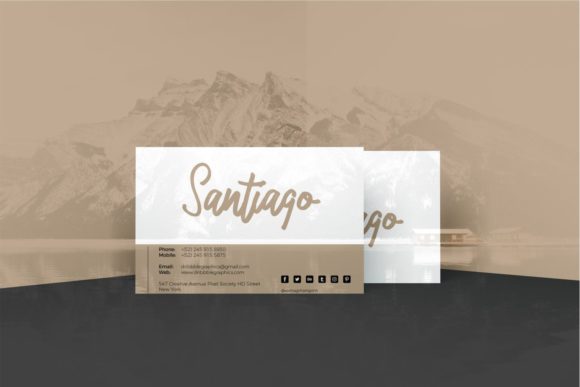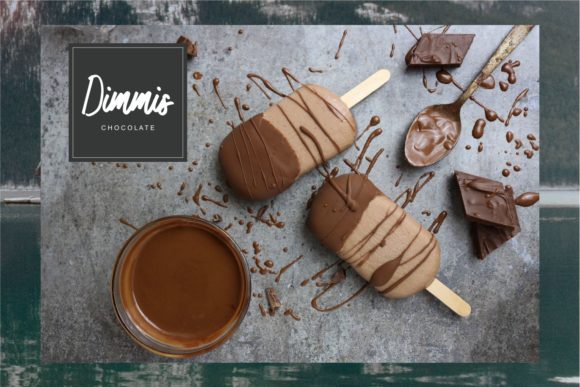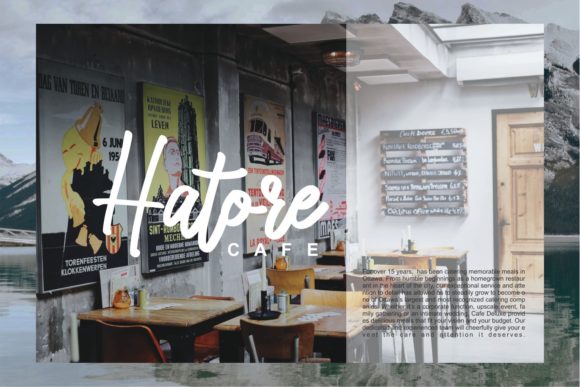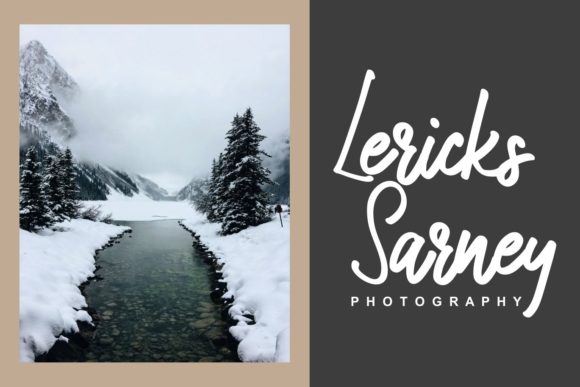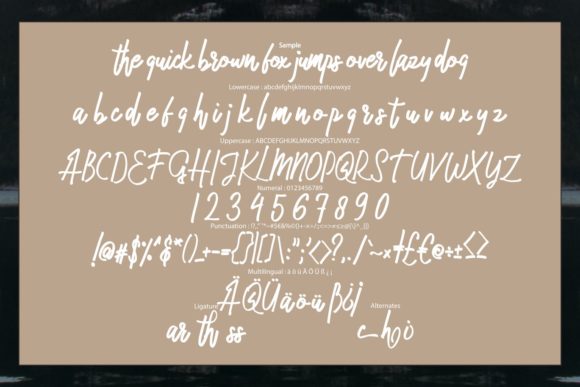
Introduction to Malikec Font
Have you ever found yourself staring at a blank canvas, searching for the perfect font to bring your creative project to life? The struggle is real, especially when you’re working on a design that demands a touch of elegance and sophistication. For designers like you, discovering the right font can be a game-changer.
Enter Malikec Font, a stunning handwritten font that’s about to become your new best friend. With its unique blend of classic style and friendly feel, Malikec Font is the perfect design resource for anyone looking to create original and outstanding designs. Whether you’re working on a personal project or a client’s high-quality design, this font is sure to impress.
Key Features of Malikec Font
- Unique, modern design with a distinctive aesthetic, perfect for making a statement in creative projects
Honest Review: Malikec Font
I recently came across the Malikec Font while searching for design resources for a creative project, and I must say it’s been a game-changer. This font offers a unique, elegant design that can elevate any visual content.
- ✨ The font’s high quality and crisp lines make it perfect for printing and digital use.
- ✨ The transparent background allows for seamless integration with various design elements.
- ✨ The font is highly versatile and can be used in a wide range of creative projects, from branding to typography.
- ⚠️ The font’s uniqueness can also be a limitation, as it may not be suitable for more traditional or conservative designs.
- ⚠️ Some users may find the font’s elegance to be too subtle or understated.
Tips for Getting the Most Out of Malikec Font
To get the most out of the Malikec Font, use it in combination with other design resources, such as graphics and images. This will help to create a cohesive and visually appealing design.
The Malikec Font is commonly used in various design applications, including business cards, brochures, and social media graphics. It is also used in creative projects, such as infographics and presentations.
Alternatives to Malikec Font
Monserrat is a modern sans-serif font perfect for design projects requiring a clean and minimalist aesthetic. It’s ideal for use in logos, headlines, and body text for creative projects. This font features a high-quality design and is available for free download. In comparison to Malikec Font, Montserrat has a more geometric and structured feel.
Great Vibes is a beautiful, elegant script font suitable for various design projects, including wedding invitations, greeting cards, and other creative endeavors. It features a high-quality design with a transparent background, making it ideal for use on various backgrounds. When compared to Malikec Font, Great Vibes has a more refined and sophisticated feel.